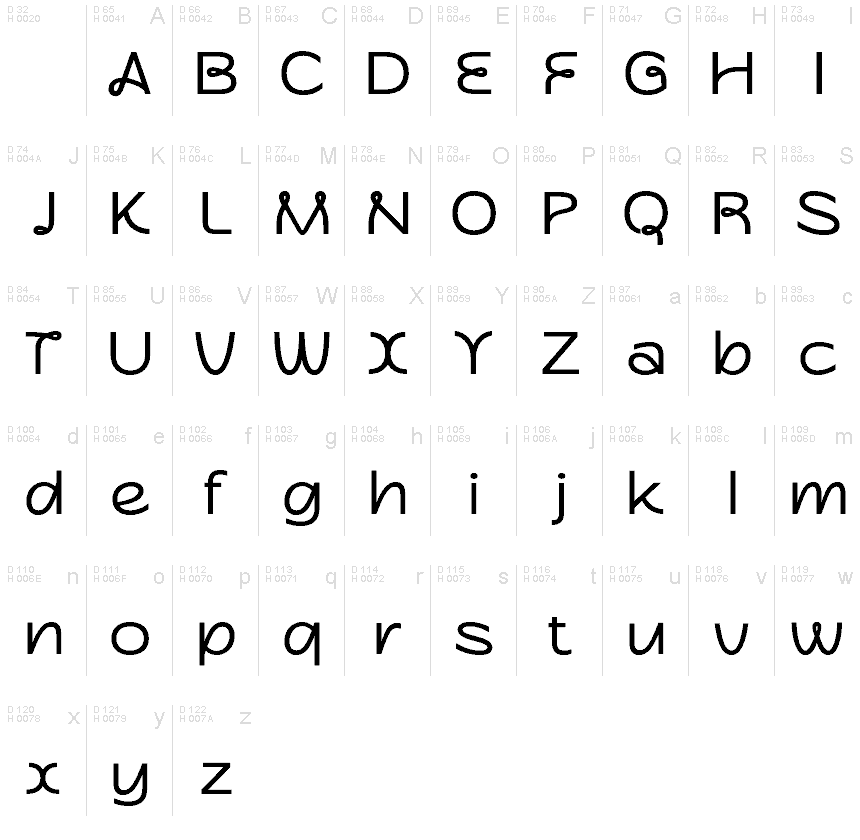
CS Aries Demo Regular
CS Aries font by Craft Supply Co. is a sleek, contemporary, geometric and minimalist font with clean lines that form a modern aesthetic. It is expanded to give letters a unique shape that stands out regardless of font size. The display typeface holds futuristic elements while still appearing sophisticated.
A world of free use cases includes branding presentations, signages, advertisements, book covers and back covers, poster designs, business cards and invitations designs; headings of magazine articles and book sections; websites’ headers; digital posts for social media platforms such as Instagram etc.